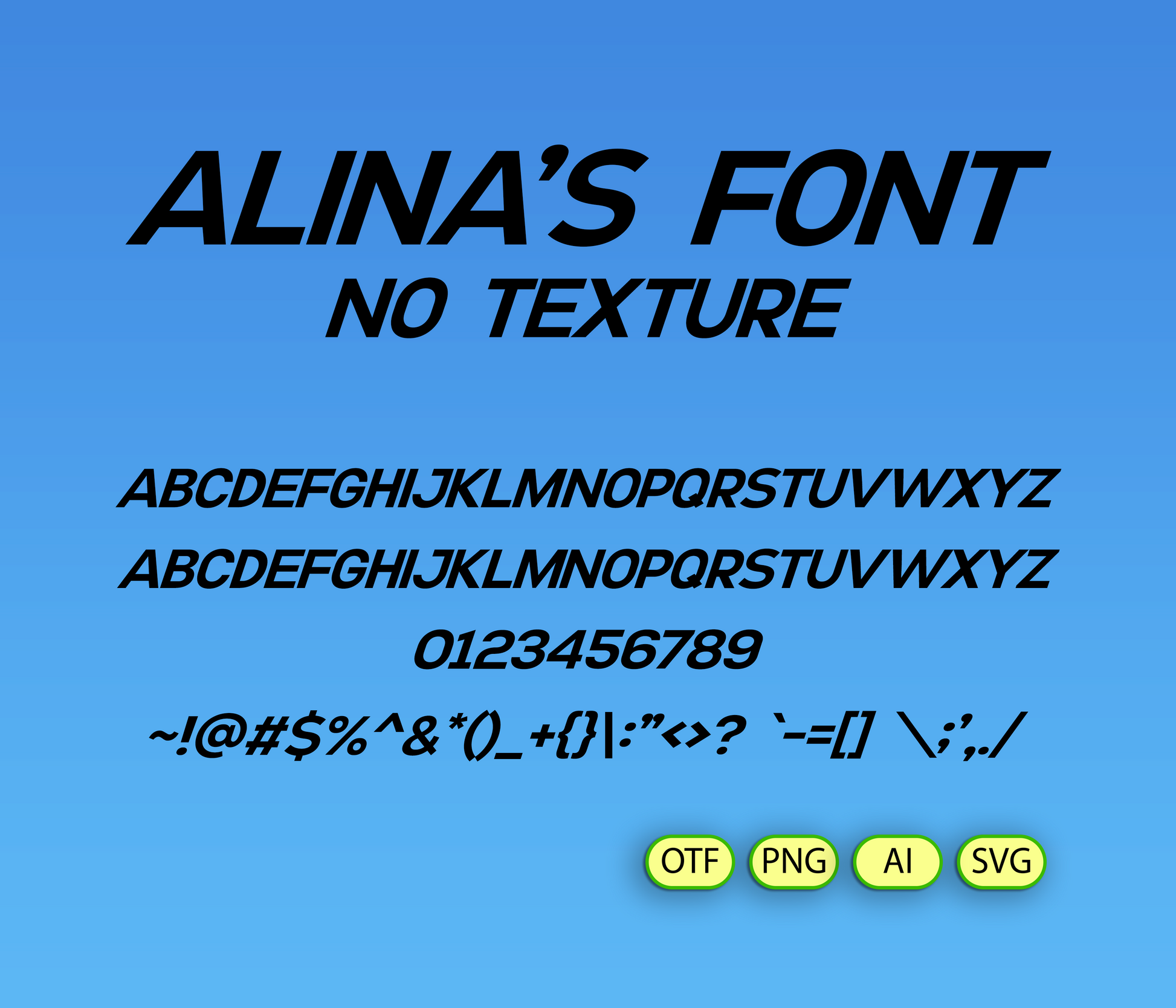
Orbital Atomic-Age Clan Font
Step into the enchanting sphere of tomorrow's possibilities with our Orbital Atomic-Age Clan font, embodying the allure of a beloved futuristic cartoon family. Perfect for midcentury-future enthusiasts, visual storytellers, occasion planners, and inventive minds, this font delivers the whimsical, bright character of a renowned floating household to your creations. Construct event notices, themed products, or digital content with the lighthearted energy of this unforgettable family's high-flying tales.
Our Orbital Atomic-Age Clan font presents refined, space-era contours and jovial letterforms echoing the sunny vision of tomorrow from this timeless animated treasure. Ideal for:
1. Occasion Publicizing: Striking invitations, placards, pennants for meetups, viewing parties, retro-themed gatherings.
2. Memorabilia Fabrication: Wearables, prints, keepsakes capturing the magic of skyway vehicles and robotic helpers.
3. Internet Presence: Enhance web pages, digital diaries, virtual communities with playful headlines and visuals.
4. Animated Projects: Authentic character for moving pictures, motion elements, admirer artwork.
5. Individual Ventures: Retro-futuristic amusement for memory keeping, handcrafted items, living space decorations inspired by the airborne family.
Many seek an online text formatter to duplicate the appearance of the Orbital Atomic-Age Clan Font. Avoid these alternatives! No generator can match the excellence of our font, which arrives in a clean, non-textured version that allows you to apply your preferred hues, treatments, and styling.
Our font celebrates the legendary cartoon, elevating your designs with its optimistic and futuristic personality. Whether producing promotional components, fashioning merchandise, or introducing a spirited element to personal projects, this font conveys the cheerful essence of this space-age family. Eager to bring retro-future charm into your designs? This font is your pathway to delightful, impactful creation.